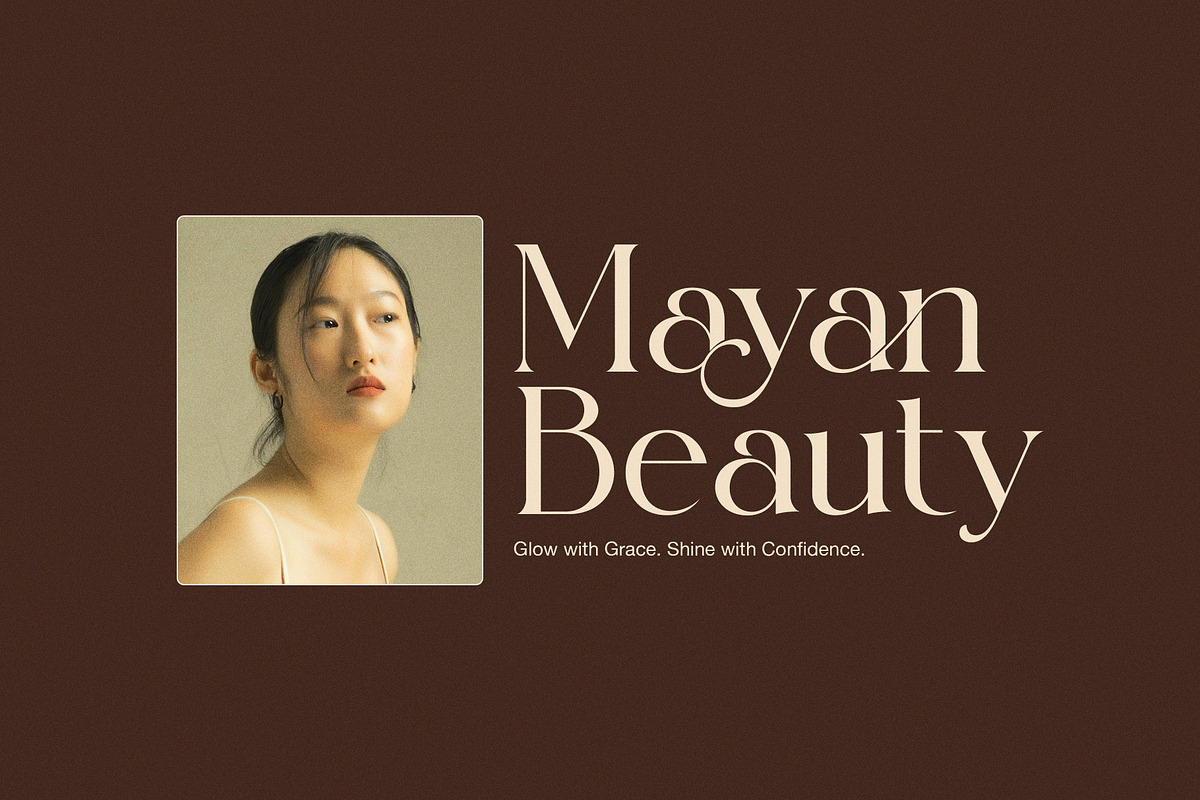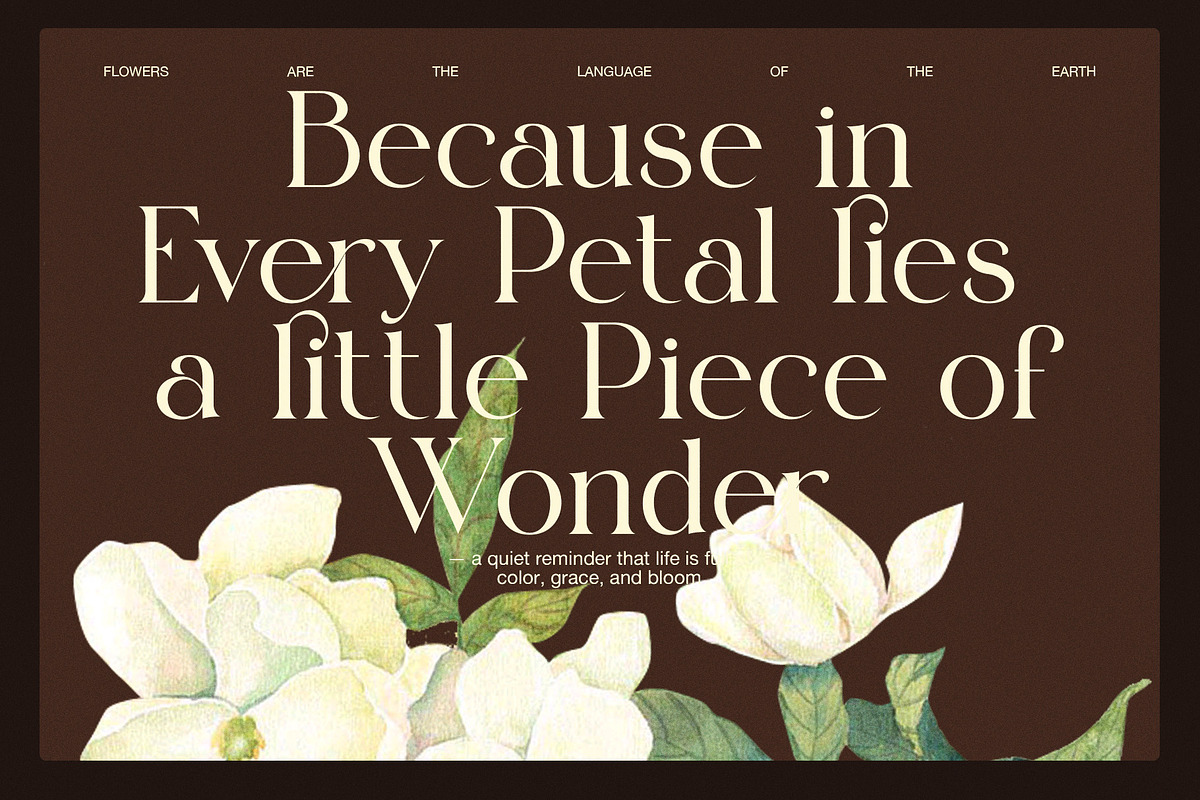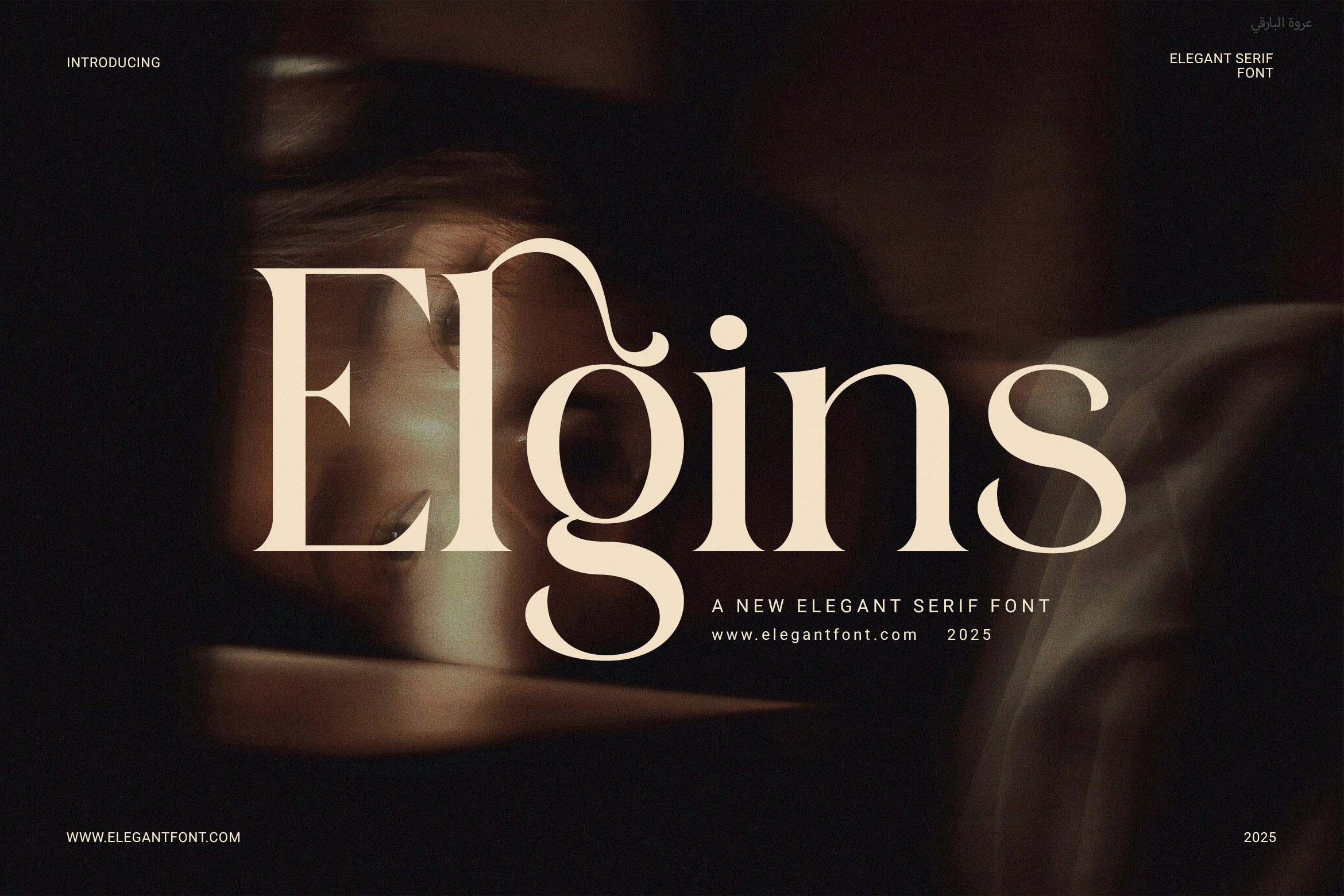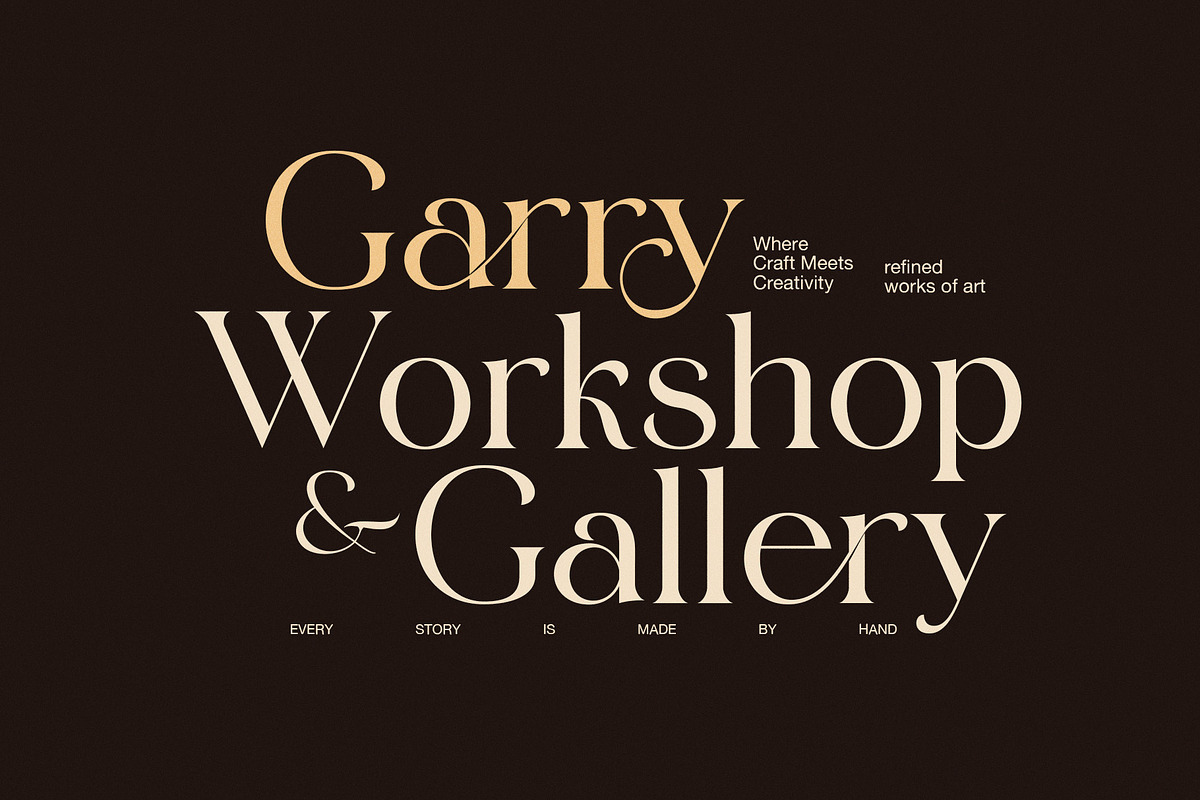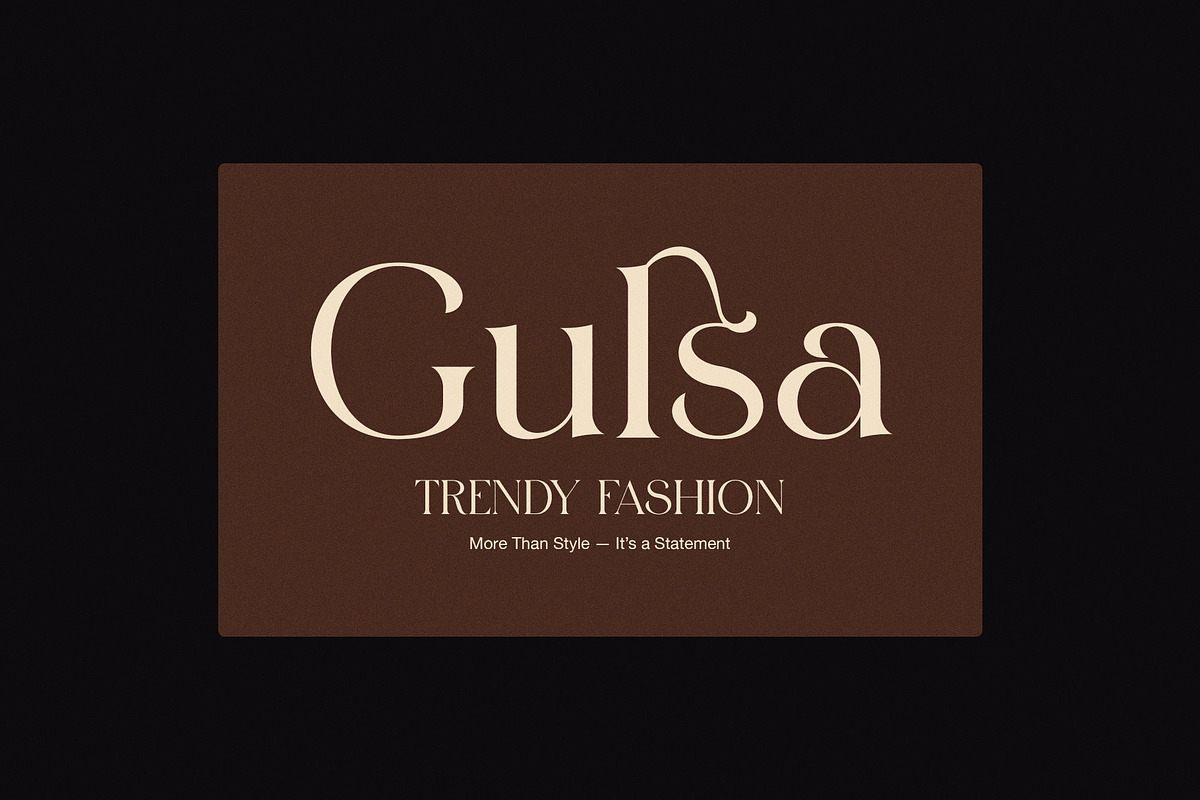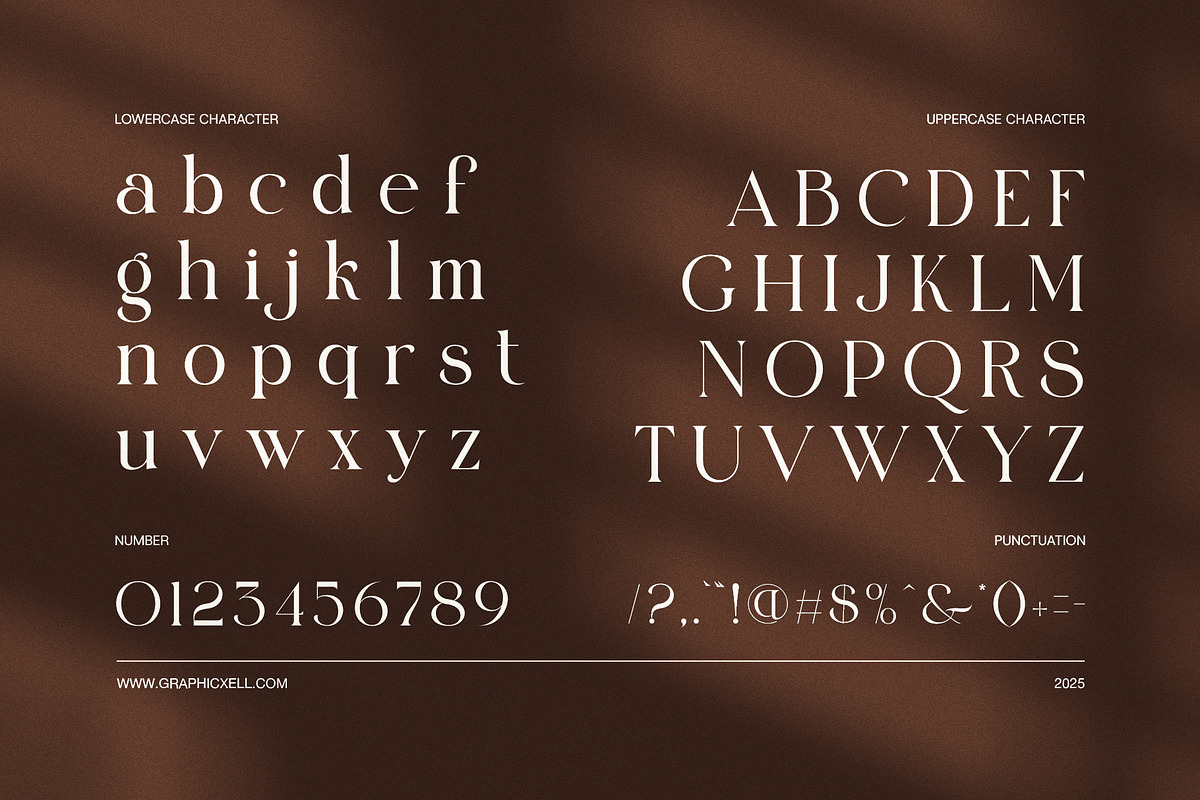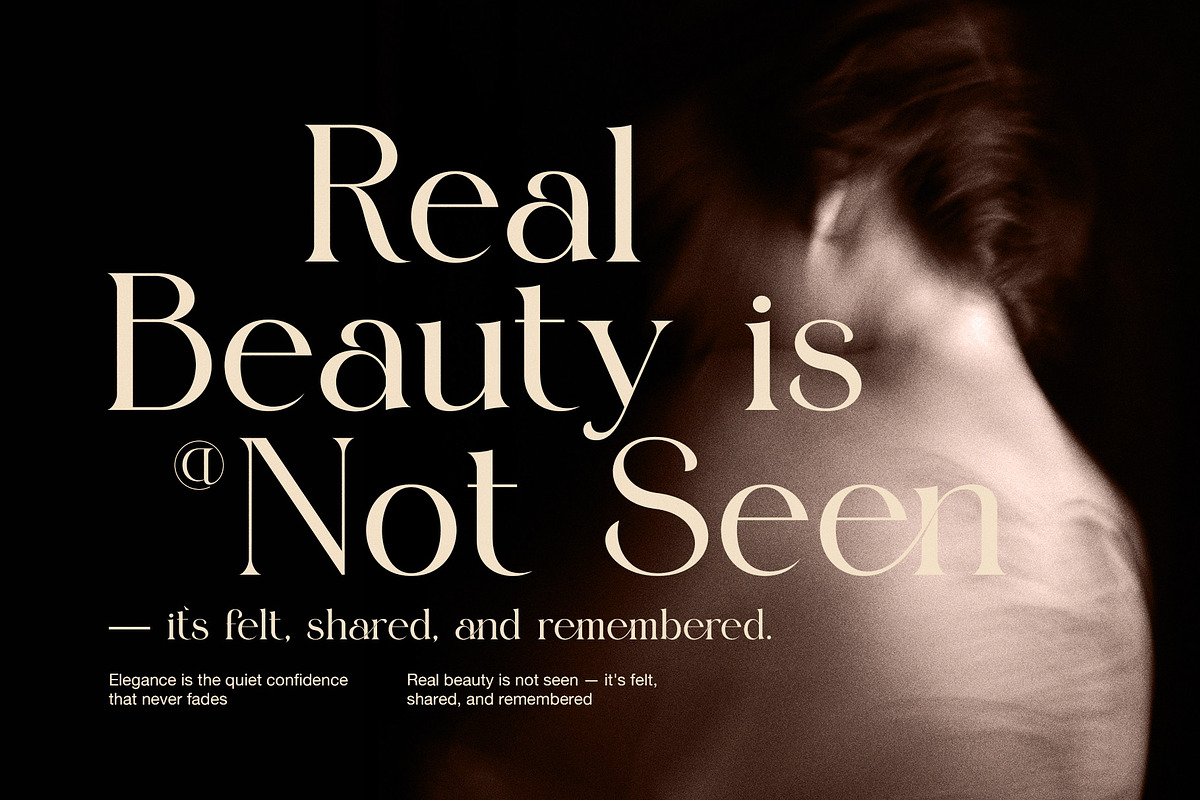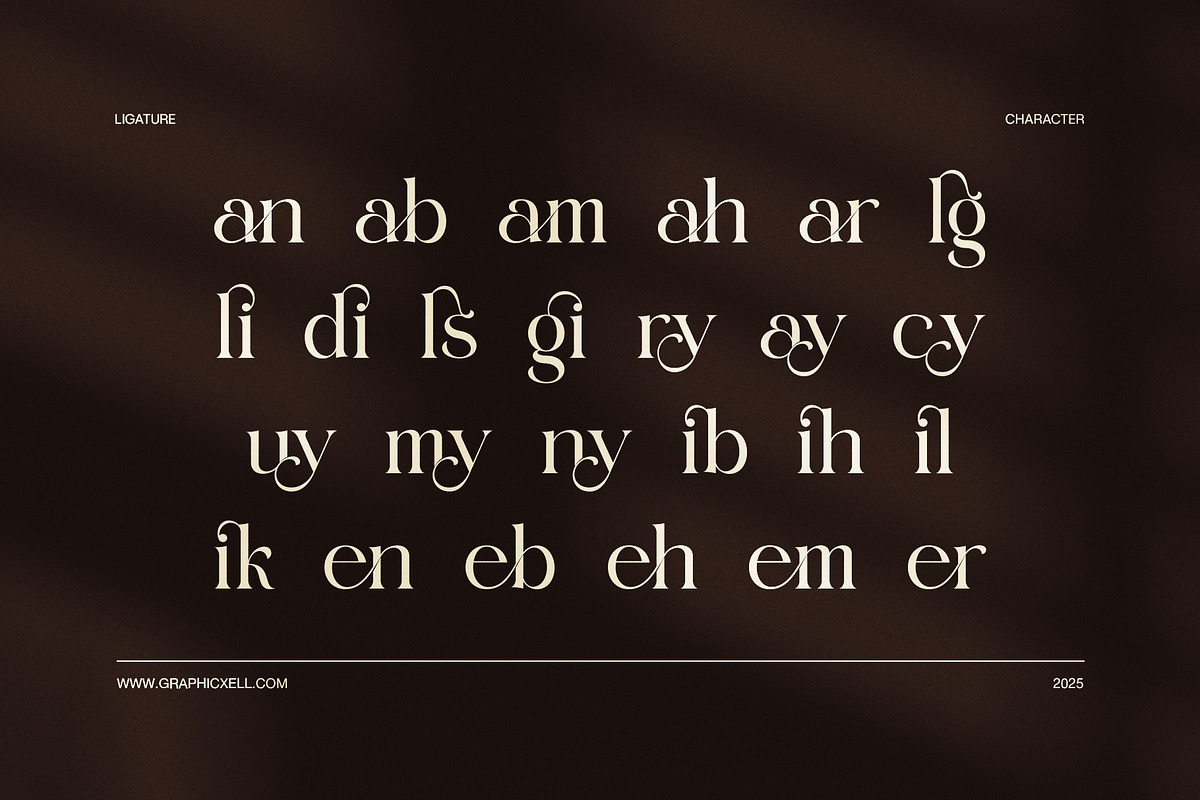
Elgins Modern Serif Font
Elgins – A Modern Serif Font with Timeless Elegance
Elgins is a sophisticated and modern serif font that blends style with simplicity. Its sleek lines and proportional curves make it a perfect choice for any branding need. Whether you're designing for a luxury label or an editorial magazine, Elgins delivers a refined and elegant visual appeal.
Each character is designed with balance and clarity in mind. Because of this, Elgins works beautifully in both digital and print media. Its thin strokes bring a touch of class, while the subtle ligatures give your text a natural, polished flow. This makes the font not only attractive but also highly functional.
Furthermore, Elgins is extremely versatile. You can use it for fashion brands, upscale packaging, or minimal website headers. At the same time, it’s equally effective for product labels, marketing materials, and stylish social media graphics. Its timeless structure helps create designs that feel both fresh and professional.
In addition, Elgins is easy to pair with other serif or sans-serif fonts. This gives designers the flexibility to build clean, layered typography in various layouts. Whether you're building a personal brand or working for clients, Elgins adapts effortlessly to your creative needs.
🧩 Elgins is Ideal For:
Premium logo designs and brand kits
Modern fashion labels and boutique packaging
Elegant editorial layouts and magazine covers
Website headers, UI text, and landing pages
Product labels, gift tags, and packaging details
High-end advertising and campaign visuals
Social media posts, quotes, and blog titles
Elgins helps your design speak with confidence, style, and clarity. From subtle elegance to bold statements, this font is your key to standout typography.